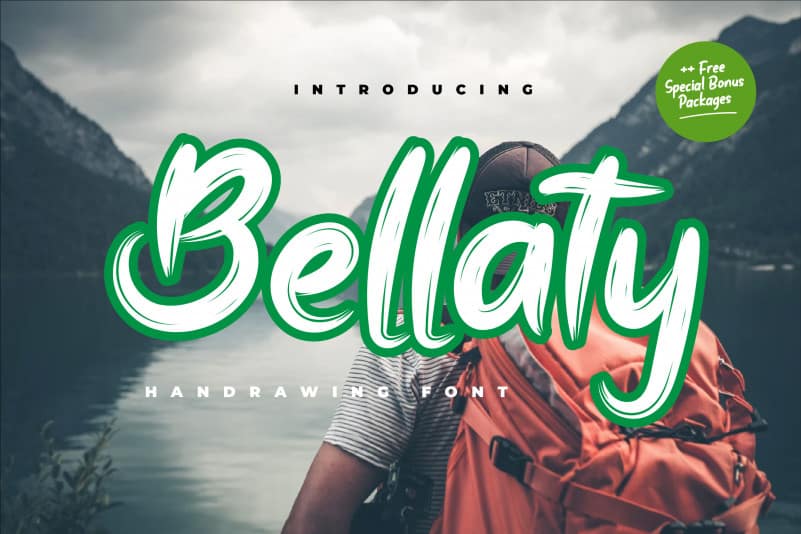
Bellaty Brush Font
Bellaty Brush Font is a bold and chunky lettered display, created with the help of a brush pen. Add this font to your creative ideas and notice how it will make them stand out!